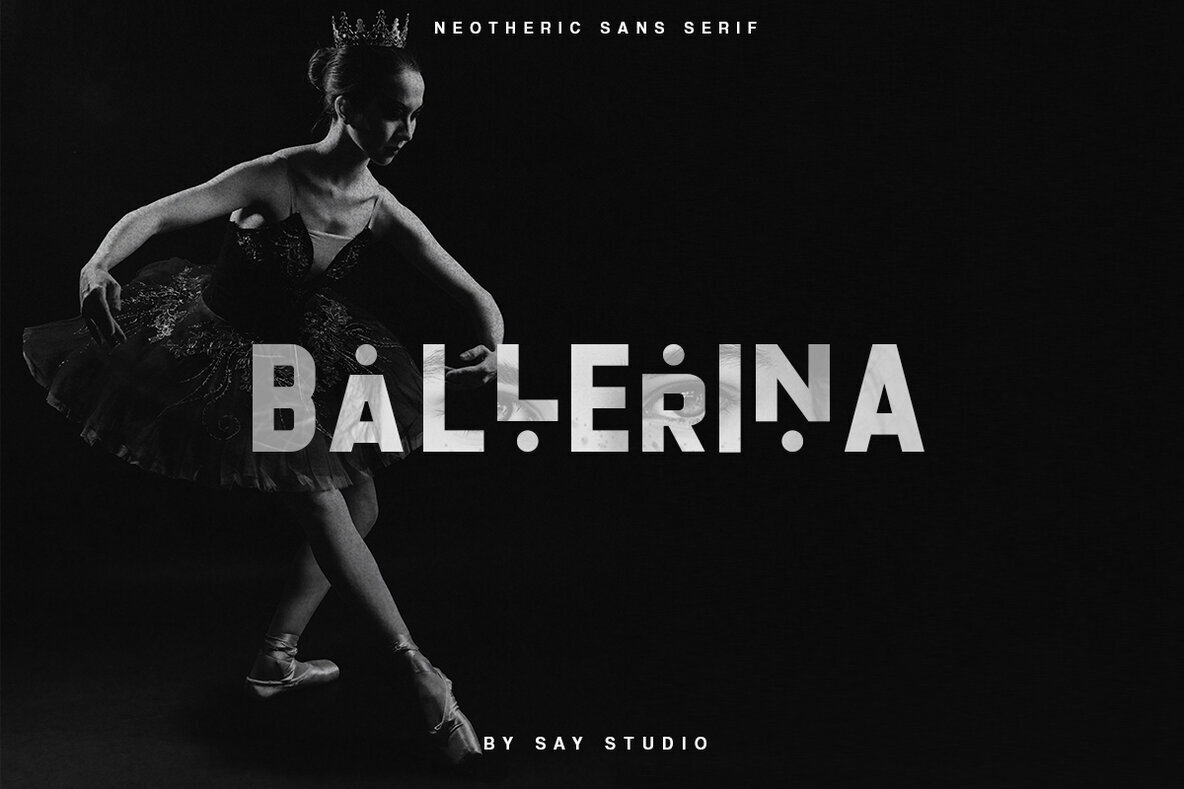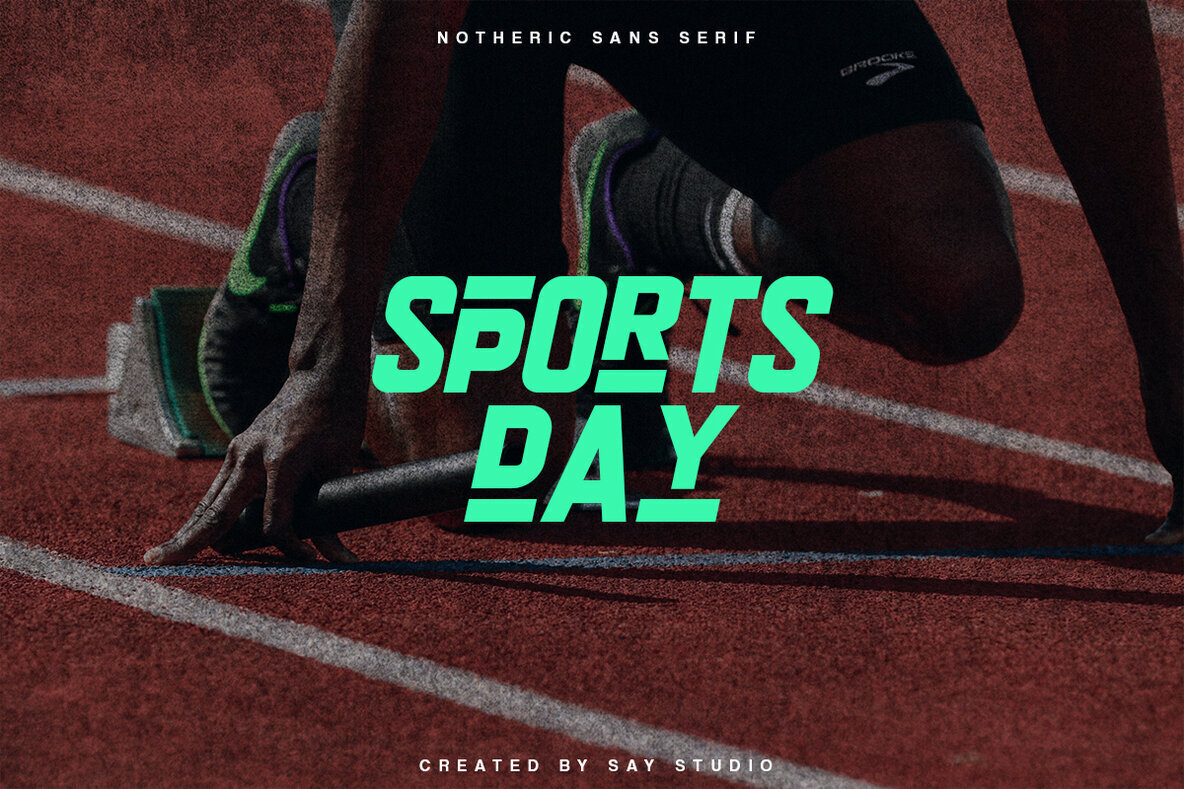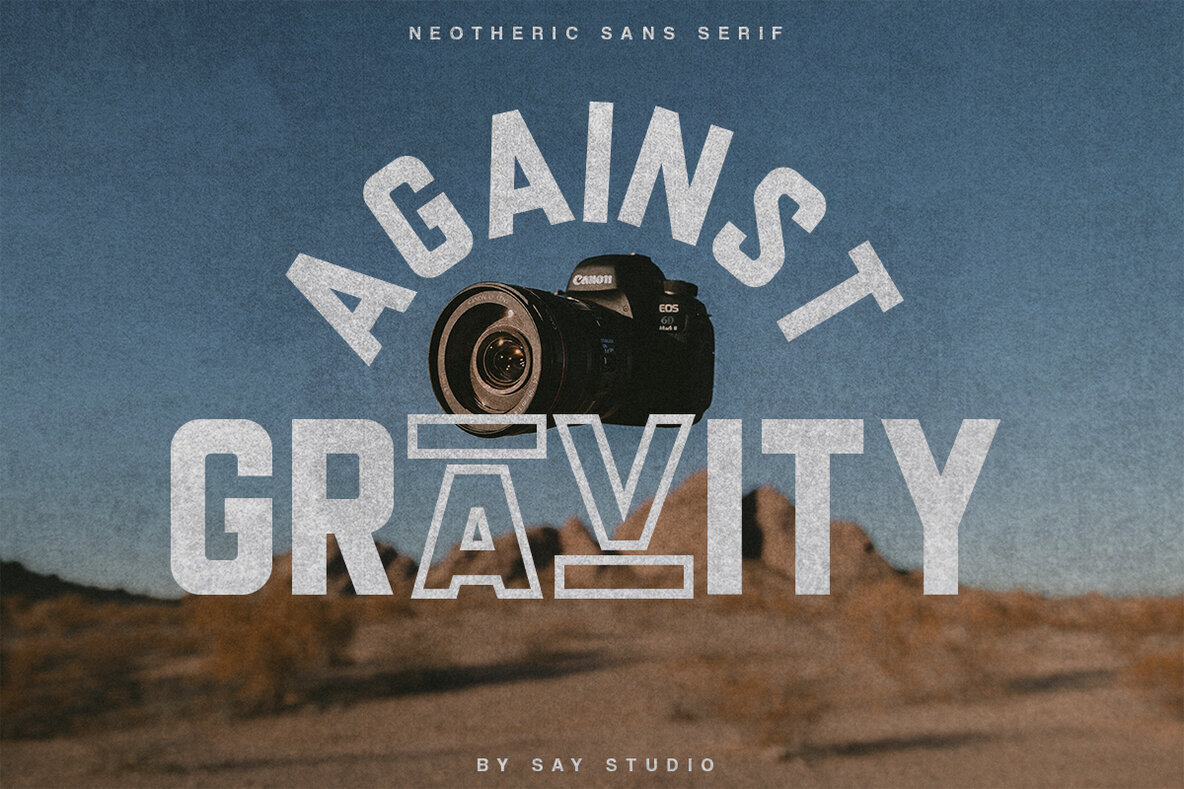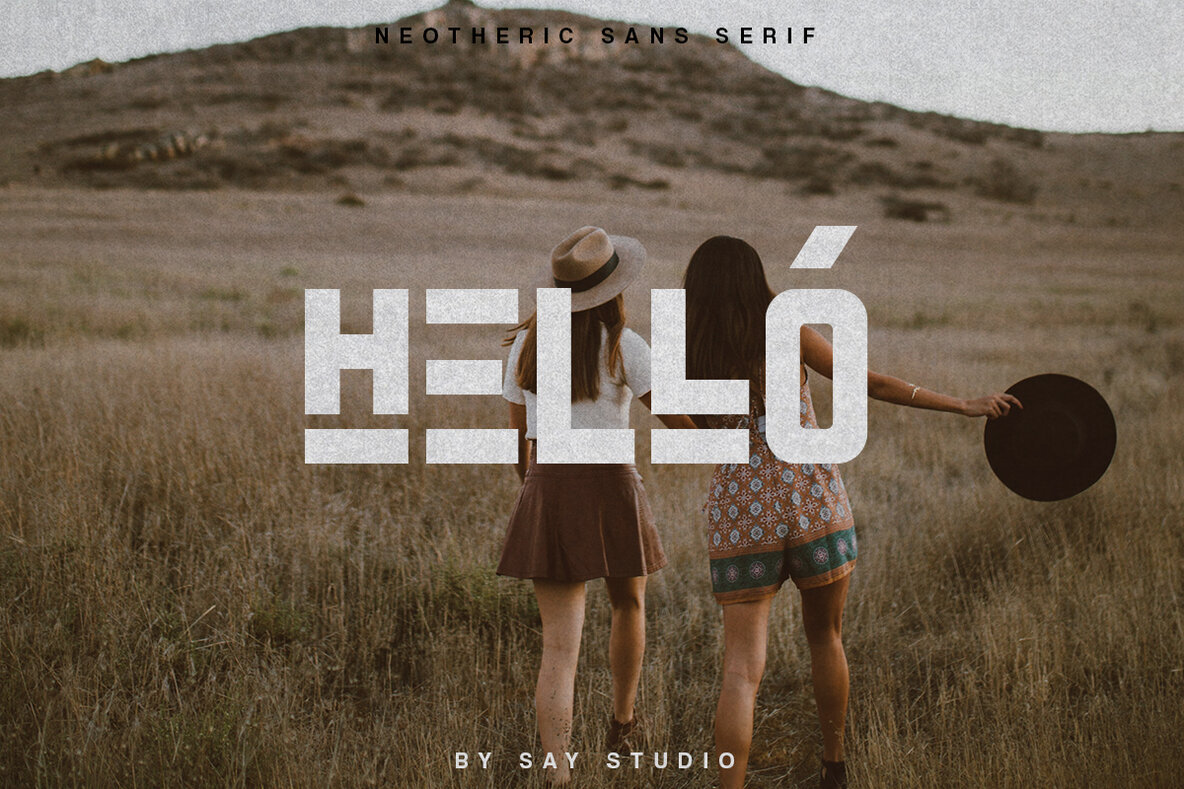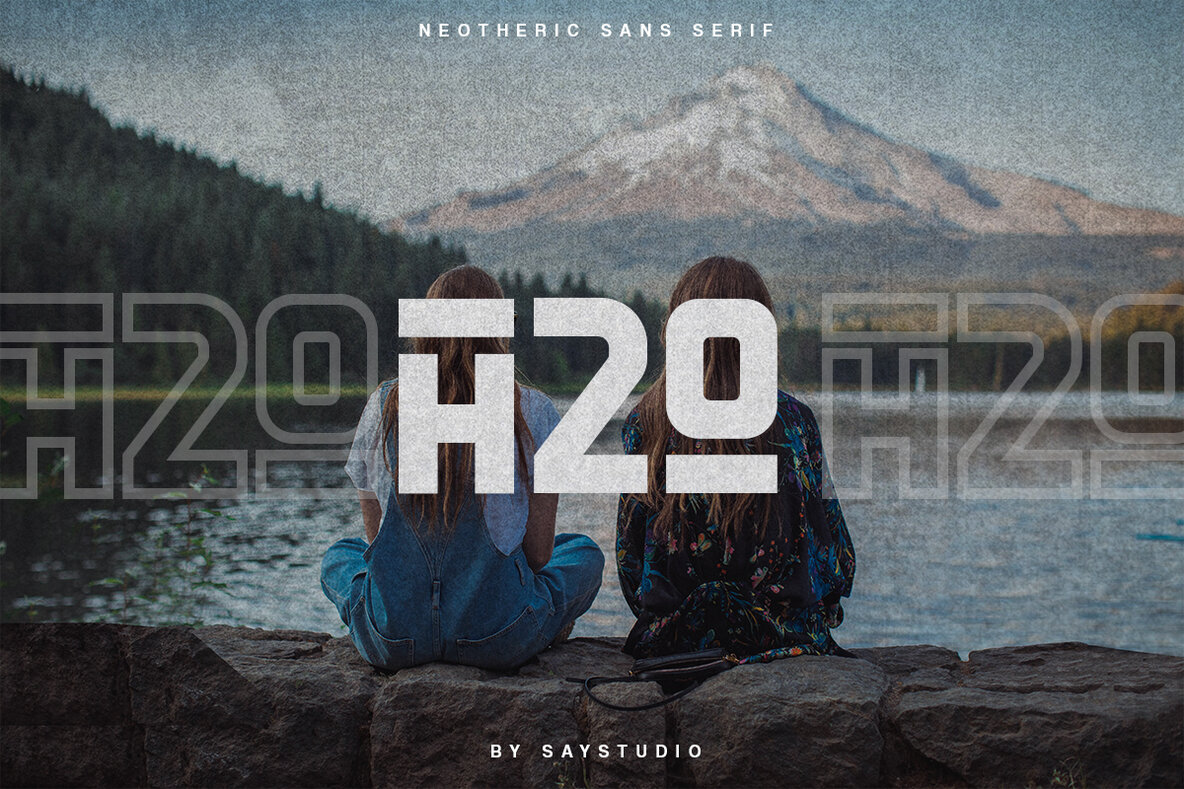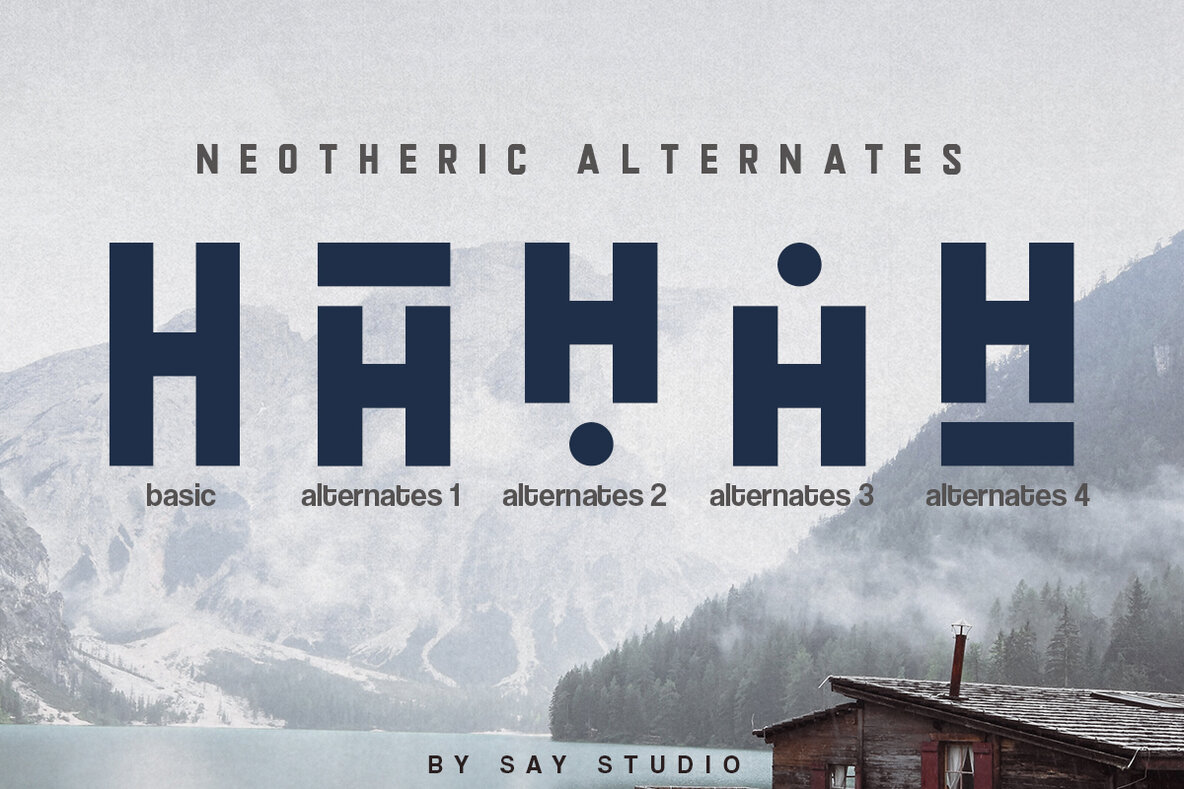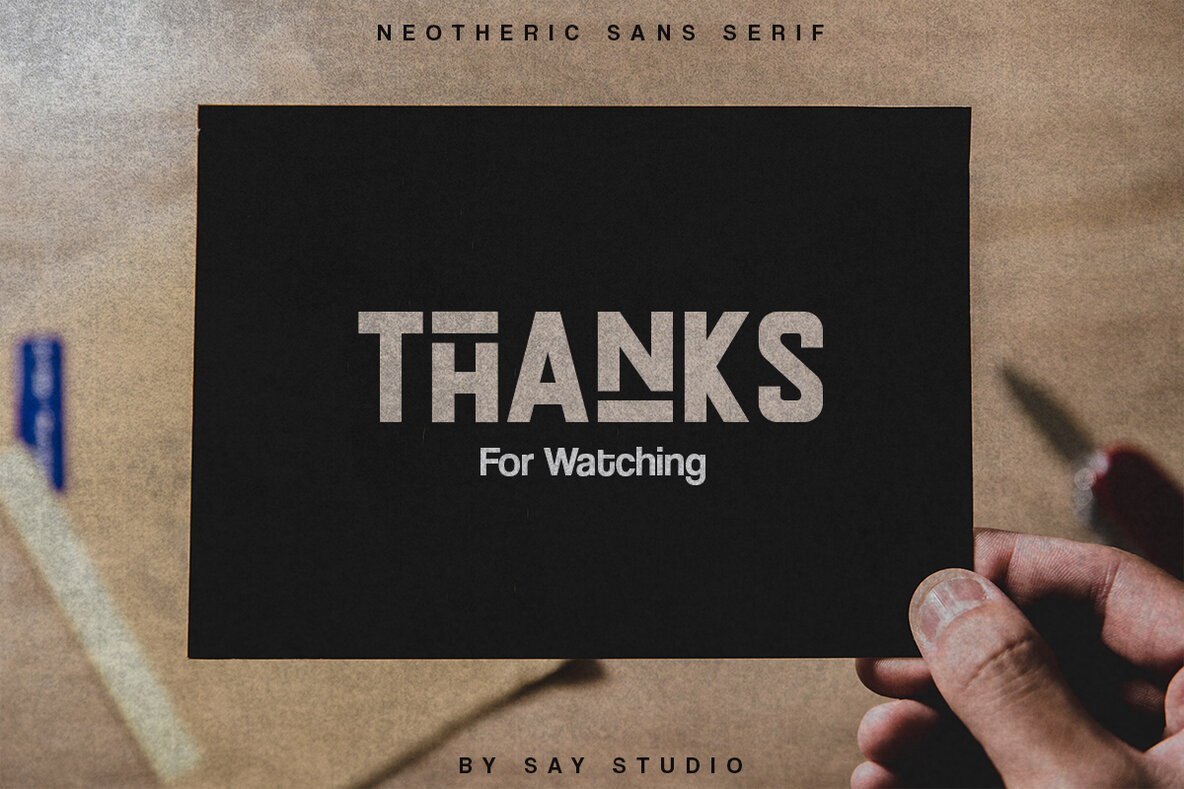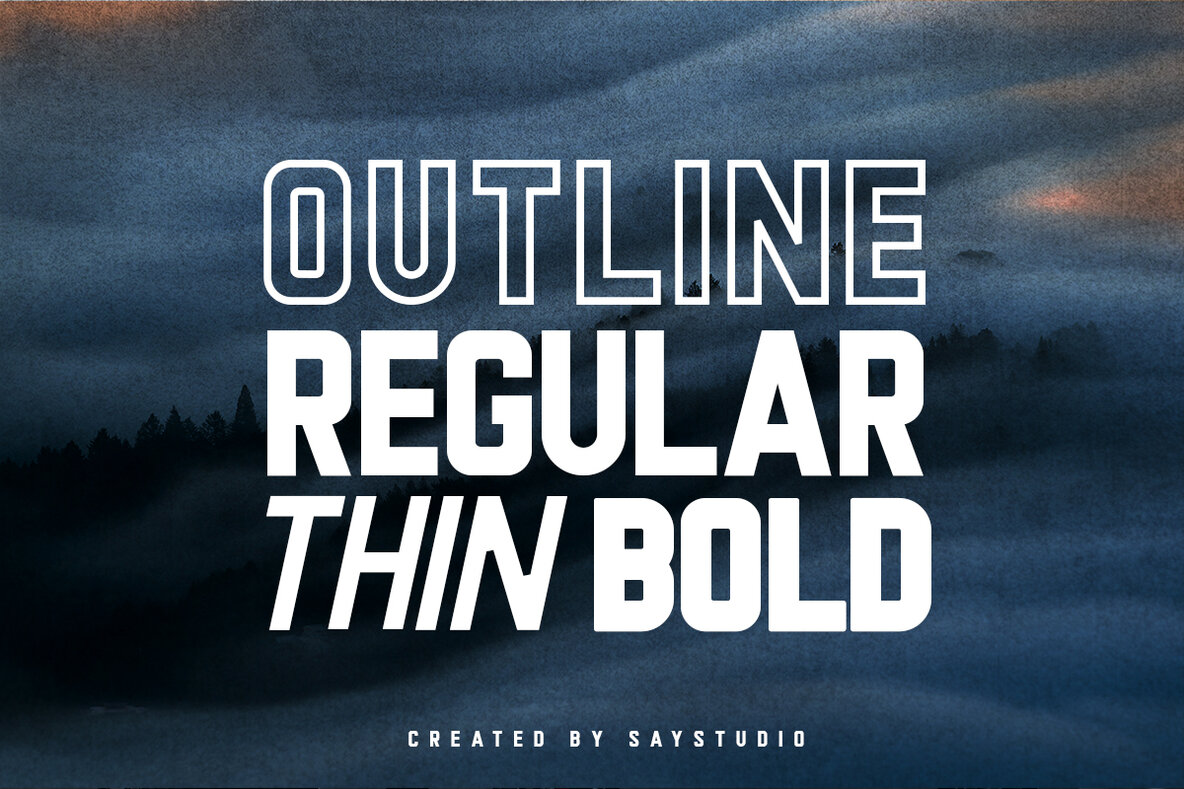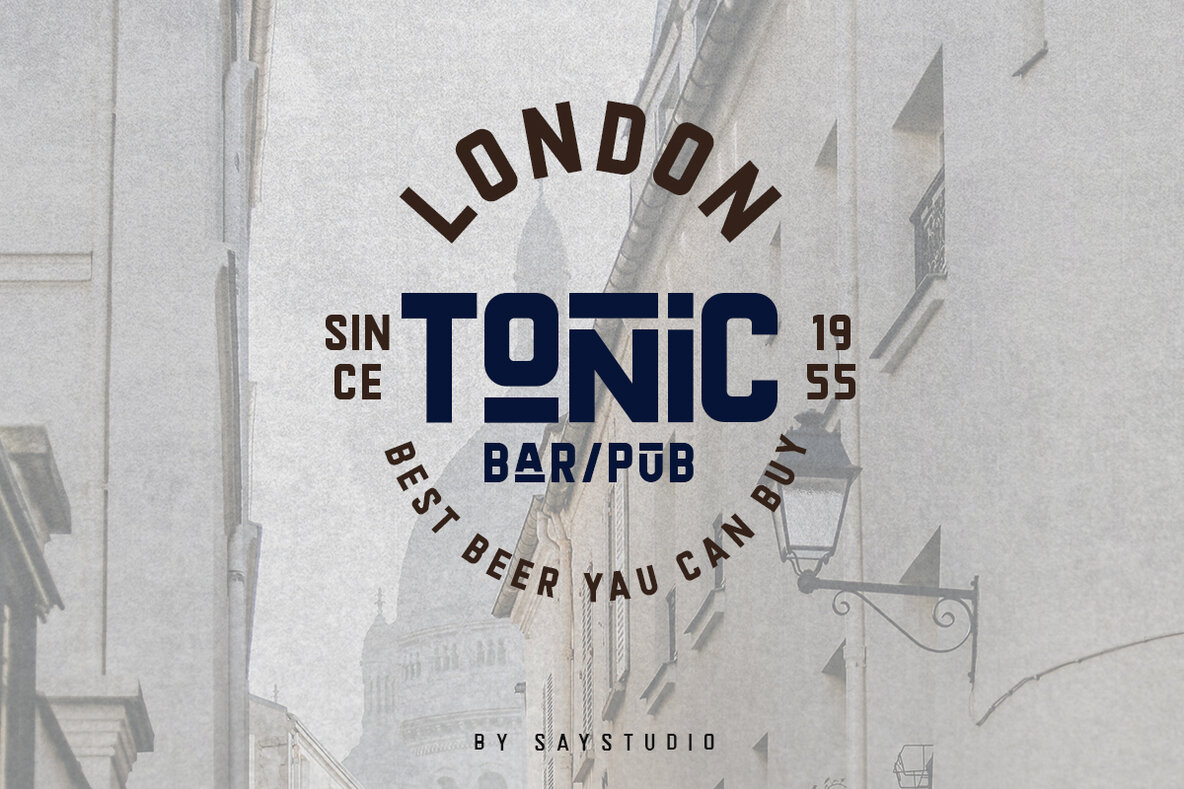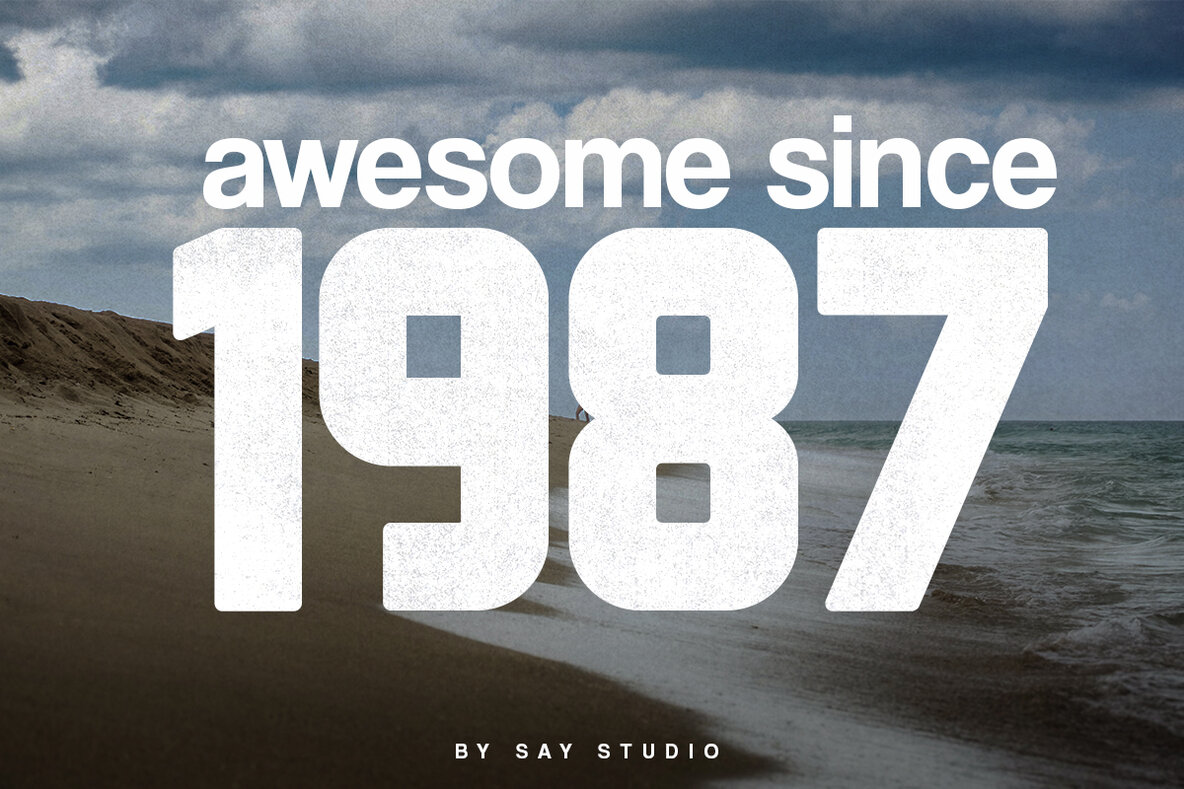
Neotheric Font
The Neotheric font family has 4 different type models that you can use to suit your needs. This powerful and sophisticated sans serif will help balance hard lines with smooth curves, giving each letterform its own individual feel while still maintaining an uncompromising sturdy style throughout all of them!